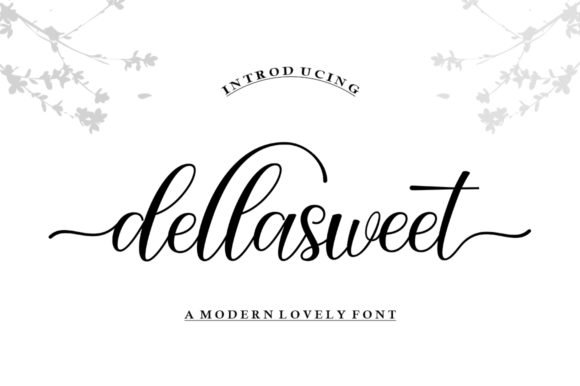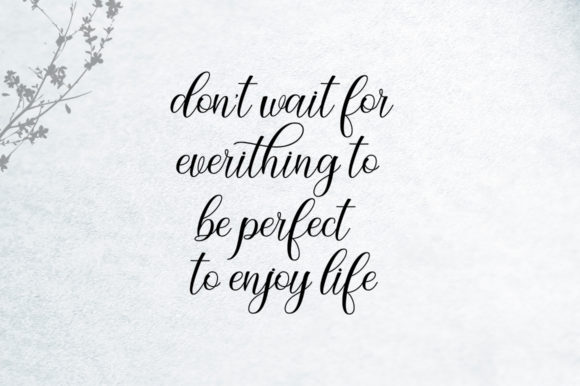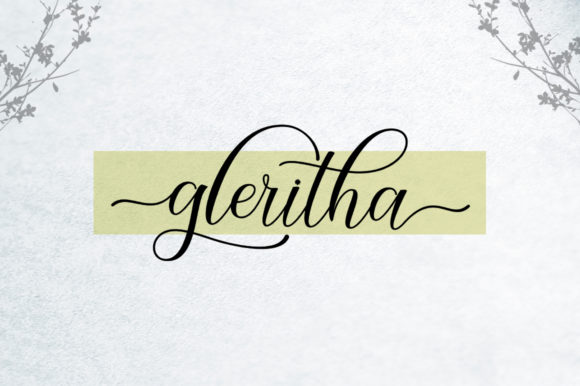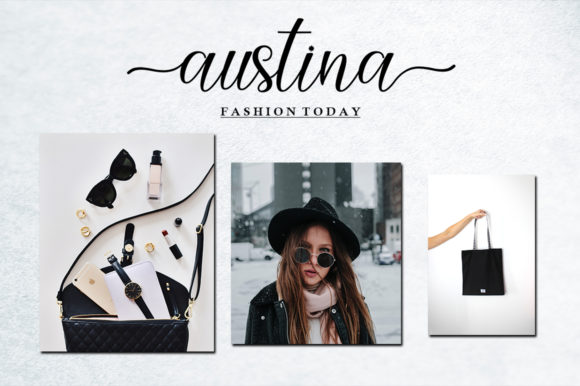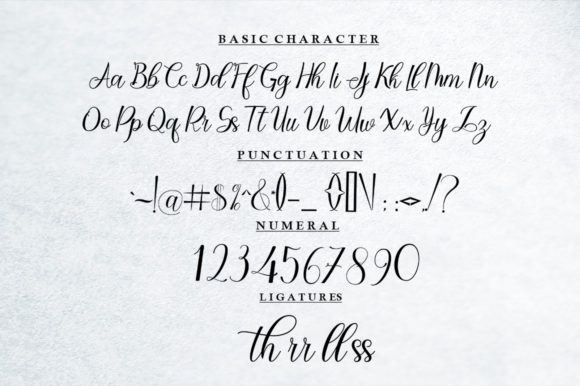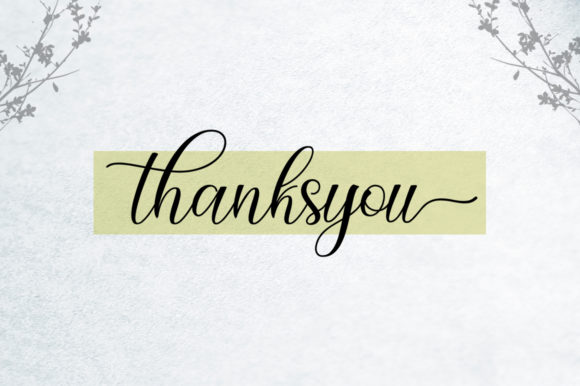
A Timeless Touch: Unlocking the Beauty of Dellasweet Font
Have you ever stared at a blank page, searching for the perfect font to capture a special moment? Maybe it’s a wedding invitation, a heartfelt thank-you note, or a quote that inspires you. The search for the right font can be daunting, but sometimes, it’s the simplest and most elegant options that leave the most lasting impression.
Enter Dellasweet Font, a charming and elegant script font that adds a handwritten touch to any design. Whether it’s a wedding invitation or a business card, Dellasweet Font brings a sense of sophistication and warmth to any project. For designers, this font is a valuable tool, offering a unique and timeless look that’s perfect for a variety of applications.
Dellasweet Font Key Features
- Font Family: Dellasweet
- Unique Characteristic: Hand-drawn, elegant, and cursive script font with a vintage touch
Dellasweet Font Review
Overall, I have mixed feelings about the Dellasweet Font. On one hand, it has its strengths, but on the other, it has some limitations that might make it less appealing to some designers.
- Unique and Playful Design: Dellasweet Font has a quirky, hand-drawn feel that can add a touch of whimsy to any design.
- Good Legibility: The font is relatively easy to read, even at smaller sizes, which makes it suitable for body text or short paragraphs.
- Customizable: The font comes in a range of weights and styles, allowing designers to experiment with different looks and feels.
- Limited Versatility: While the font is great for casual, creative projects, it may not be the best choice for more formal or professional designs.
- Not Ideal for Long Text: Due to its unique, handwritten style, Dellasweet Font can become tiresome to read when used for extended periods.
Overall, I think Dellasweet Font is a great addition to any designer’s toolkit, but it’s essential to use it judiciously and consider the project’s requirements and audience.
Tip: Use Dellasweet Font to create visually appealing headings and titles in your Canva projects.
Tip: Use Dellasweet Font to add a touch of elegance to your illustrations and designs.
Tip: Use Dellasweet Font to create professional-looking presentations and documents.
Dellasweet Font is perfect for:
- Creative projects
Tip: Experiment with different font sizes and styles to get the most out of Dellasweet Font.
Alternatives to Dellasweet Font for Designers
Lato is a modern sans-serif font designed by Łukasz Dziedzic. It’s perfect for use in digital interfaces, including websites, apps, and software. Lato is highly legible and works well in both large and small text sizes. Compared to Dellasweet Font, Lato has a more geometric and clean look, making it suitable for modern and minimalist designs.
Montserrat is a sans-serif font designed by Julieta Ulanovsky. It’s inspired by the urban environment of Montserrat, a neighborhood in Buenos Aires. Montserrat is ideal for use in digital and print media, especially for titles and headings. Compared to Dellasweet Font, Montserrat has a more condensed and geometric look, making it suitable for designs that require a strong, urban feel.
Open Sans is a sans-serif font designed by Steve Matteson. It’s designed to be highly legible and suitable for digital interfaces, including websites, apps, and software. Open Sans is available in multiple weights and styles, making it versatile for various design needs. Compared to Dellasweet Font, Open Sans has a more neutral and clean look, making it suitable for designs that require a balanced and professional feel.
Merriweather is a classic serif font designed by Eben Sorkin. It’s perfect for use in print media, including books, magazines, and newspapers. Merriweather has a traditional and elegant look, making it suitable for designs that require a sense of sophistication and refinement. Compared to Dellasweet Font, Merriweather has a more traditional and ornate look, making it suitable for designs that require a classic and vintage feel
What is the recommended font size and line height for the Dellasweet Font?
The recommended font size for the Dellasweet Font is between 10pt and 24pt, depending on the application and the desired level of legibility. A line height of 1.2 to 1.5 times the font size is recommended to ensure optimal readability and visual balance.